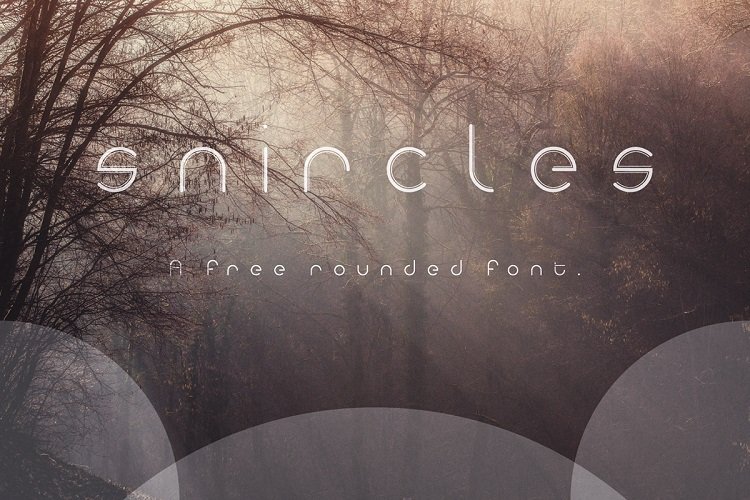
Snircles Font
Snircles Font designed by Scott Niblo. Snircles is a font inspired by the high class market. Because of it’s rounded feel this font is great to use in logos, posters and other design elements where your client may be looking for something elegant.